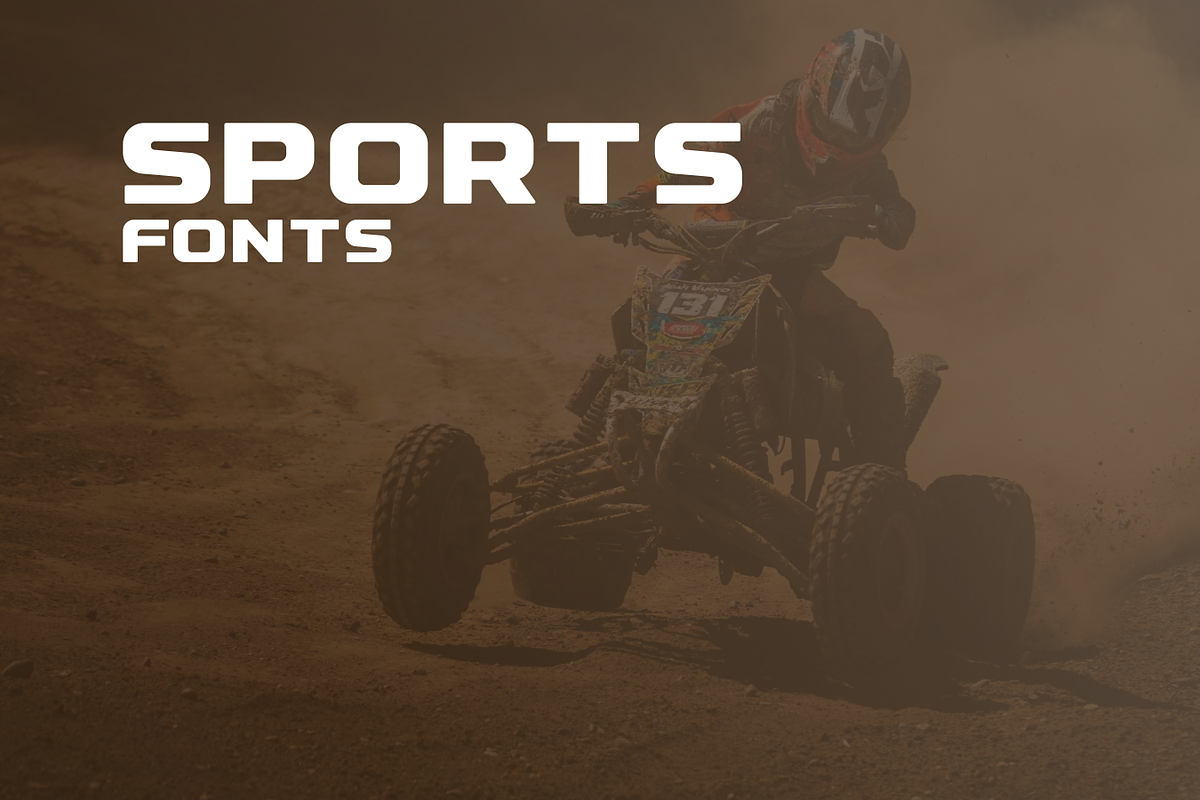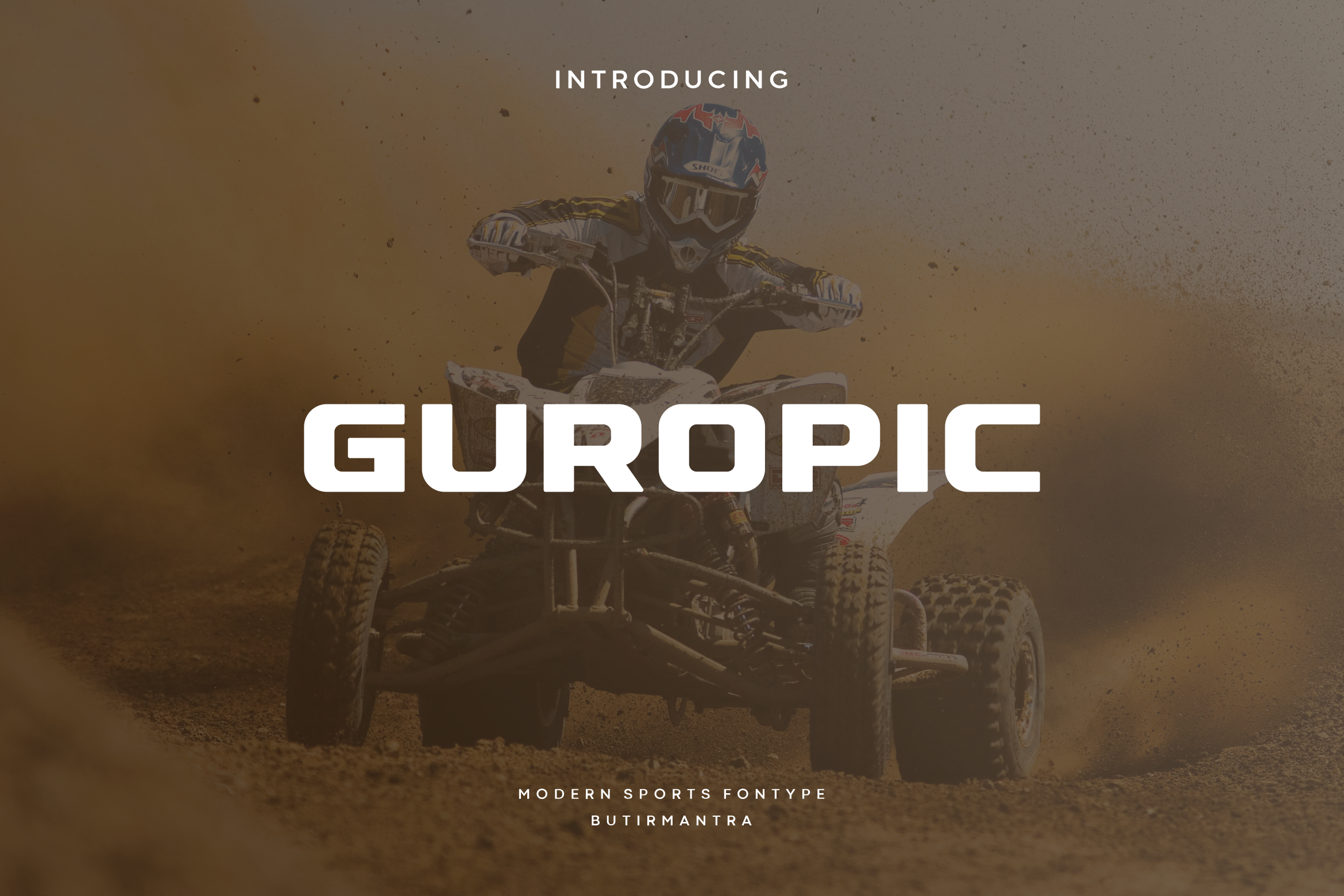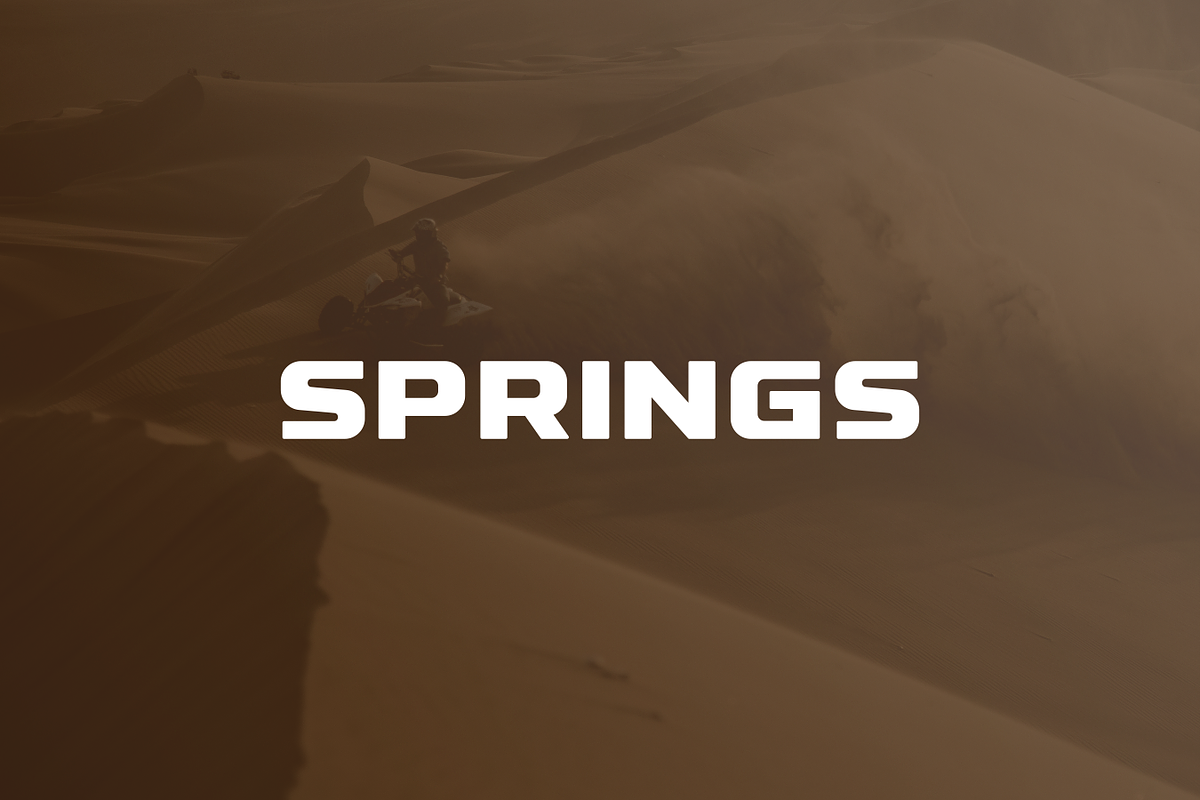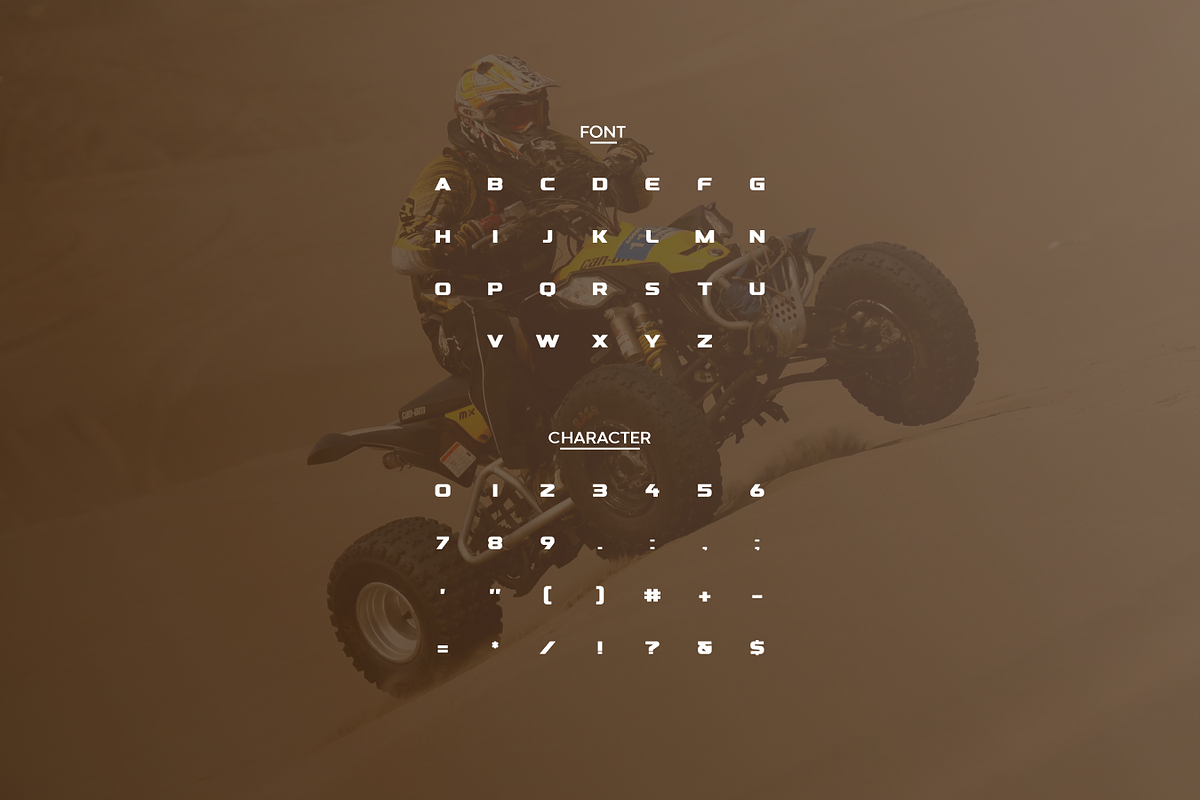
Guropic - Modern Display Typeface
Guropic is a thick lettered and bold display font. It will fit perfectly on each of your designs. Have fun with this beautiful font and explore its endless variations. Guropic was created with sports designers and their usages of type in mind.
- Punctuation & Number